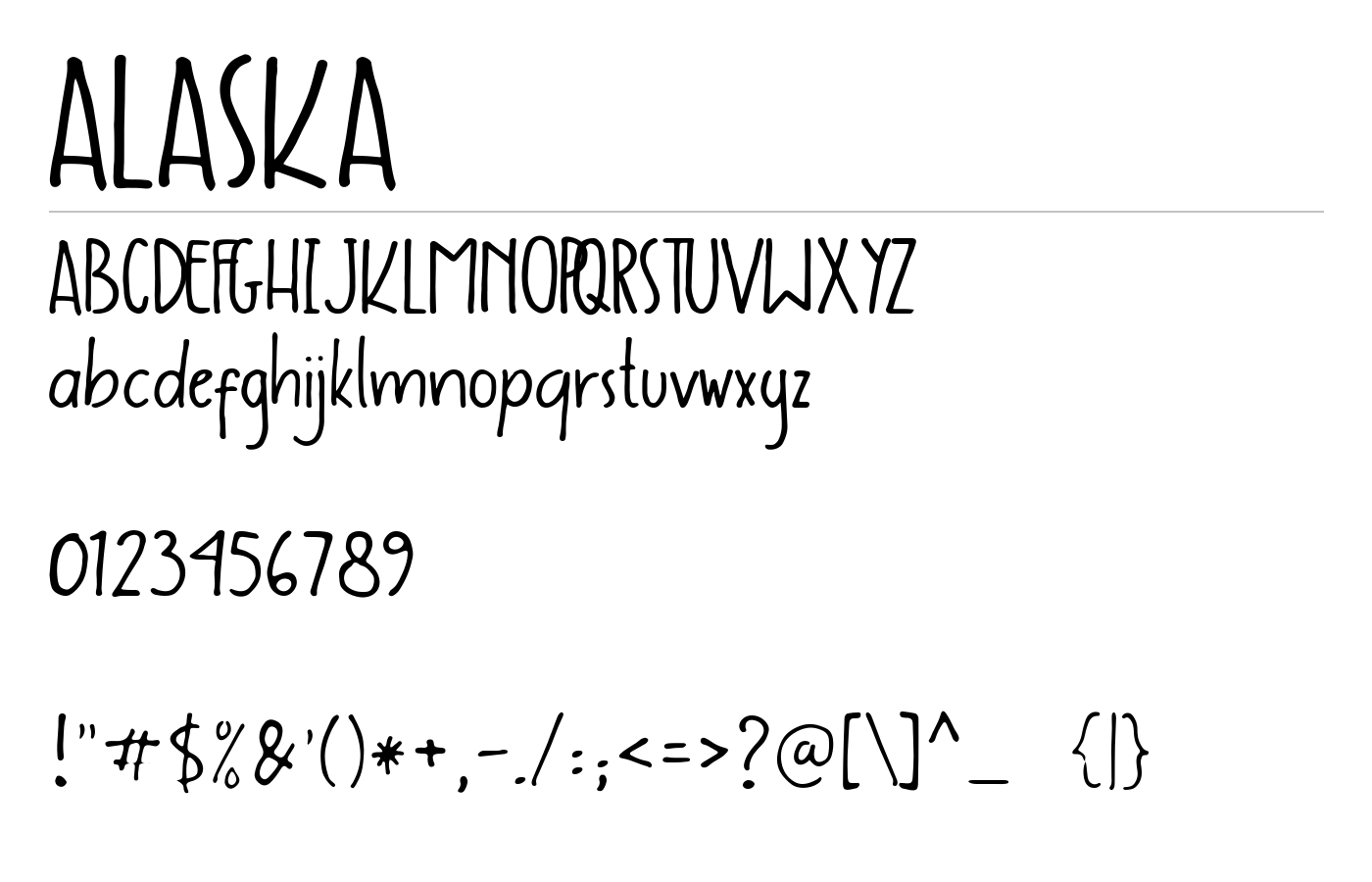
ALASKA is a casual, handwritten sans serif font with a playful and friendly personality. Its tall, narrow letterforms and uneven strokes give it a natural, organic feel that works well for informal designs, kids’ products, and creative branding. This font is perfect for adding a personal touch to logos, packaging, and headlines where a warm, approachable vibe is desired.
ALASKA Font
About ALASKA Font
| Font family | ALASKA Font |
| Designer | MagerStudio |